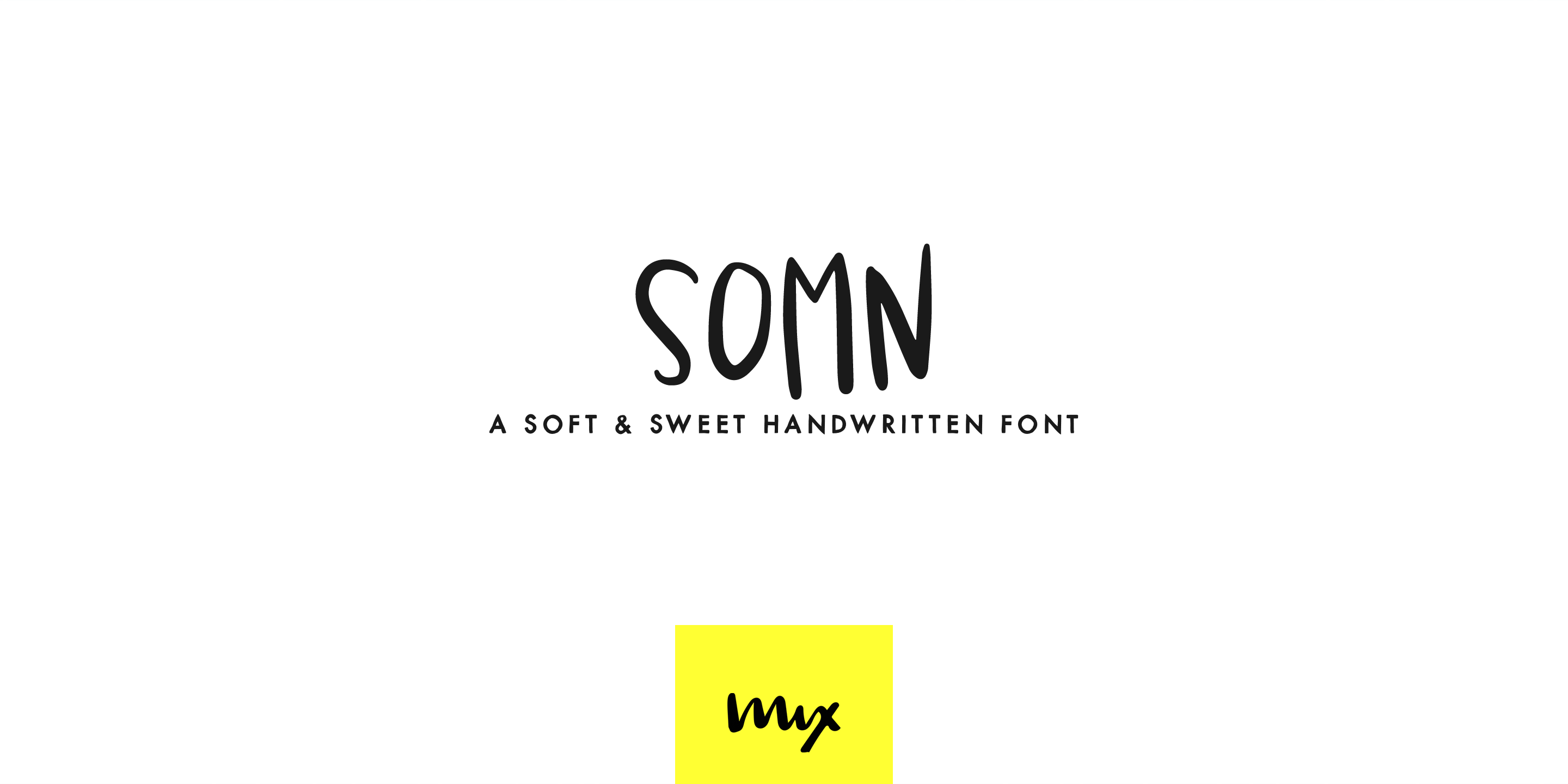
This dreamy typeface is perfect for sleep wellness branding, meditation app interfaces, luxury bedding companies, relaxation therapy centers, mindfulness retreat communications, dream journal designs, ambient music promotions, and tranquil lifestyle marketing that requires peaceful serenity and sleep-focused sophistication with meditative elegance and restful authenticity.
Somn Font is exciting because it beautifully captures the essence of peaceful slumber and meditative tranquility through its softly flowing letterforms that evoke the gentle transition between wakefulness and dreams. The font's distinctive character design and somnolent aesthetic reflect the world of restorative sleep and peaceful relaxation, making it perfect for wellness brands that want to convey sleep quality, restful sophistication, and the kind of tranquil elegance that appeals to consumers seeking authentic sleep solutions and meditative peace in their busy lives.
The Somn Font family includes sleep-inspired variations and peaceful styling options, featuring light, regular, medium, and bold weights, along with dreamy design elements and meditative alternates that provide sleep wellness companies and designers with comprehensive typographic tools for creating authentic restful branding and tranquil sleep communications.
Embrace peaceful typography with Somn Font Free Download, a typeface that brings sleep wellness elegance to contemporary relaxation and mindfulness branding projects. This exceptional font combines meditative tranquility with professional functionality, making it an essential resource for sleep technology companies, wellness centers, and designers working on relaxation-focused or mindfulness marketing campaigns. The peacefully crafted letterforms ensure excellent readability while conveying the restful serenity and sleep-focused sophistication that defines this distinctly tranquil and authentically sleep wellness-inspired typeface.